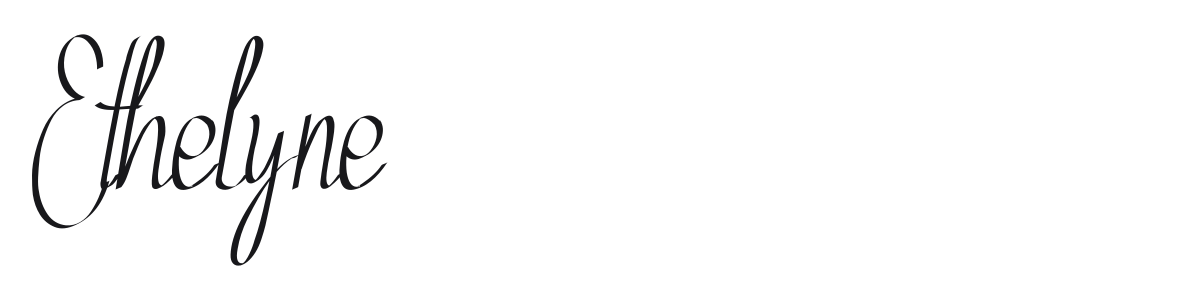
Ethelyne
Ethelyne is a flowing formal script with condensed proportions and high contrast between its hairline upstrokes and weighted downstrokes. The calligraphic rhythm and sweeping ascenders give it a handcrafted, pen-drawn quality rooted in copperplate tradition. It sits comfortably in wedding stationery, luxury branding, and anywhere a refined, feminine touch is called for.